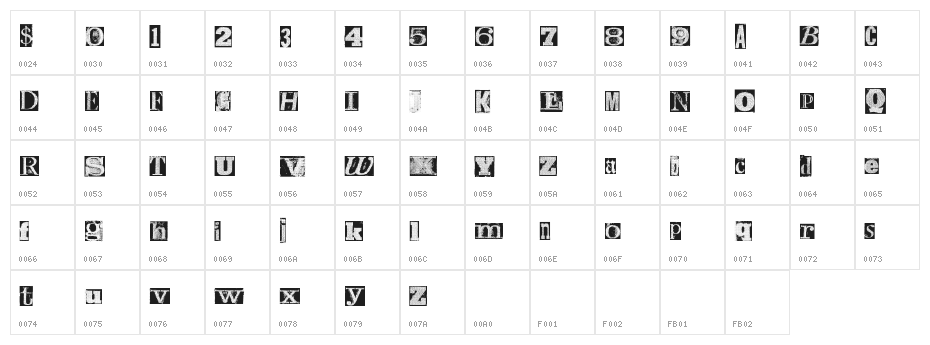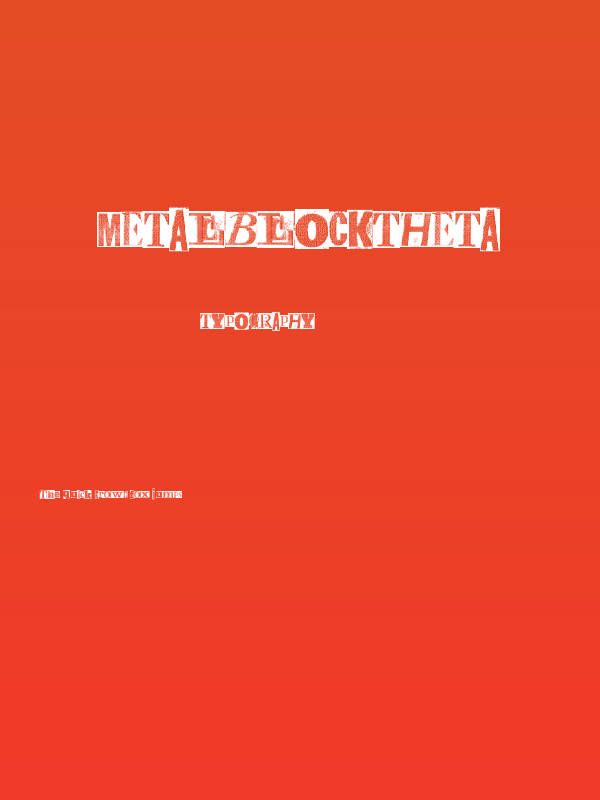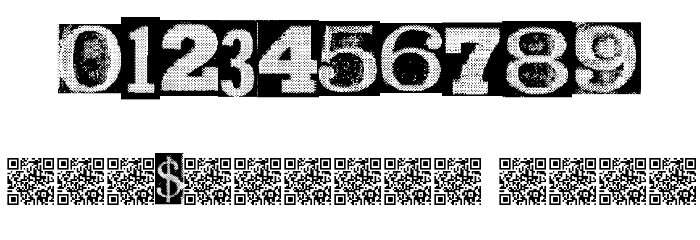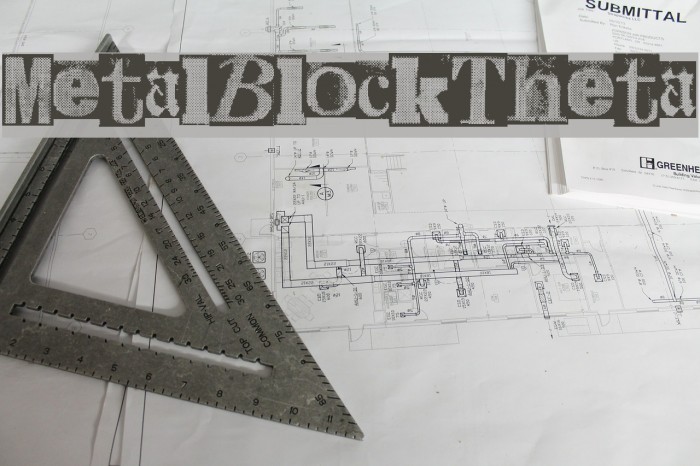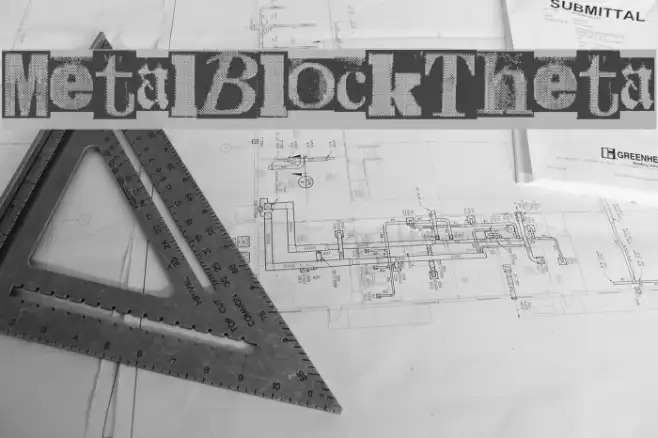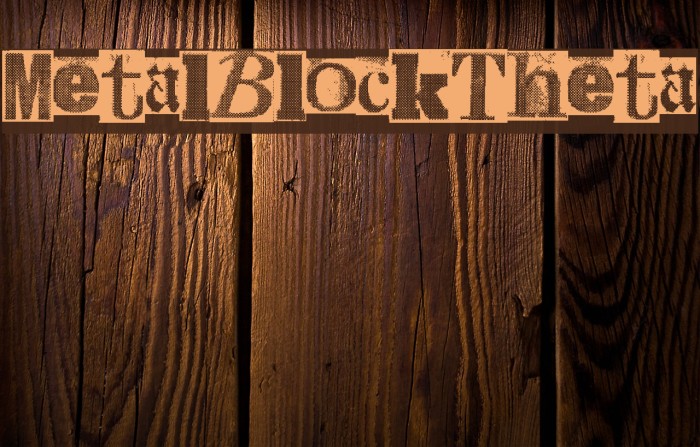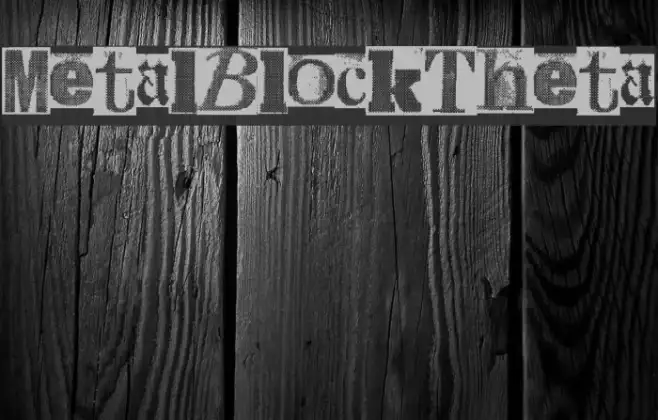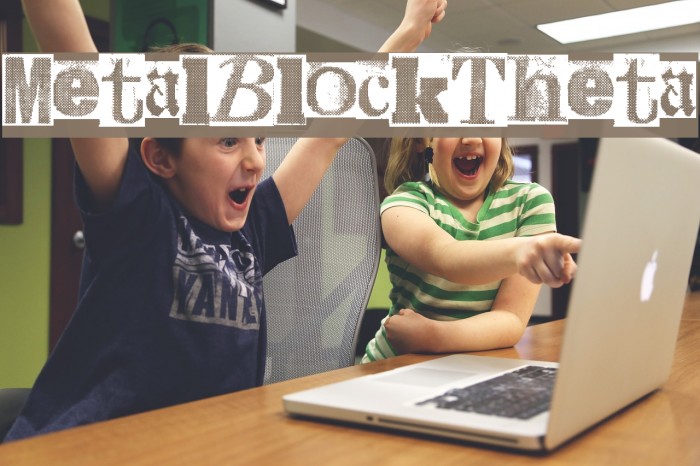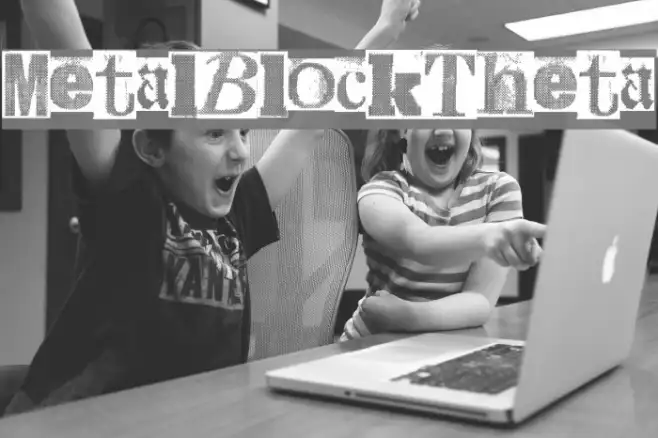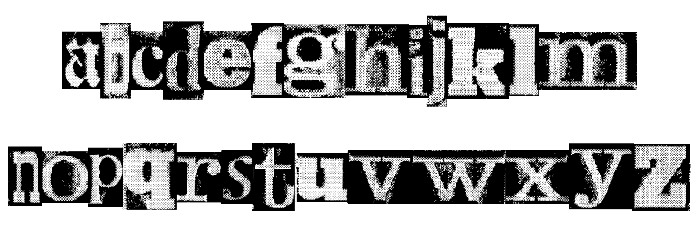
MetalBlockTheta Font
MetalBlockTheta Description
This font features a bold and industrial aesthetic, with each character appearing as if it has been crafted from metal blocks. The letters are heavily stylized, with a mix of sharp and rounded edges that give them a rugged, mechanical feel. The uppercase letters are particularly striking, with a strong presence that commands attention. The lowercase letters maintain the same industrial theme, though they are slightly more subdued. The numbers and special characters follow suit, ensuring a cohesive look across all elements. This font's unique texture and appearance make it ideal for projects that require a bold, impactful statement.
| Overall Style | Industrial, Bold, Mechanical |
| Proposed Projects | Ideal for posters, album covers, industrial-themed branding, and any project requiring a bold, impactful typeface. |